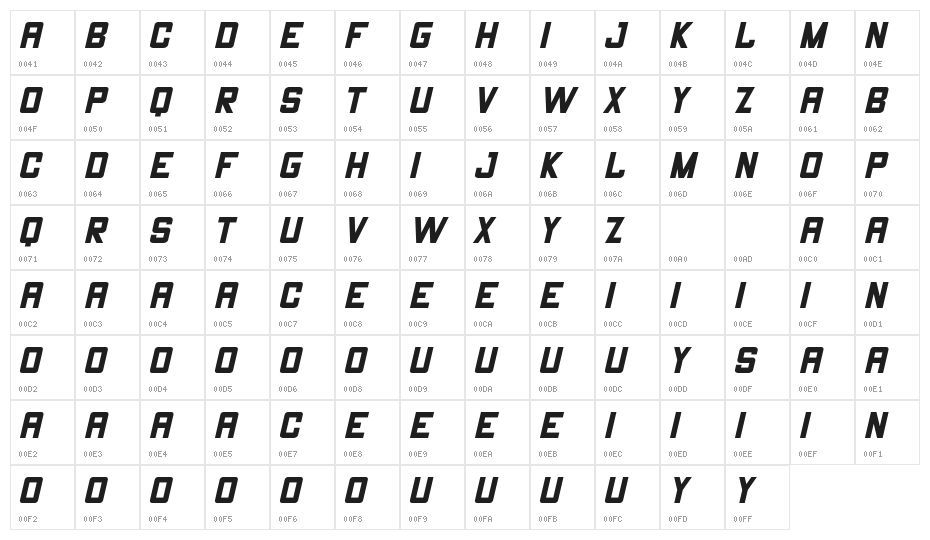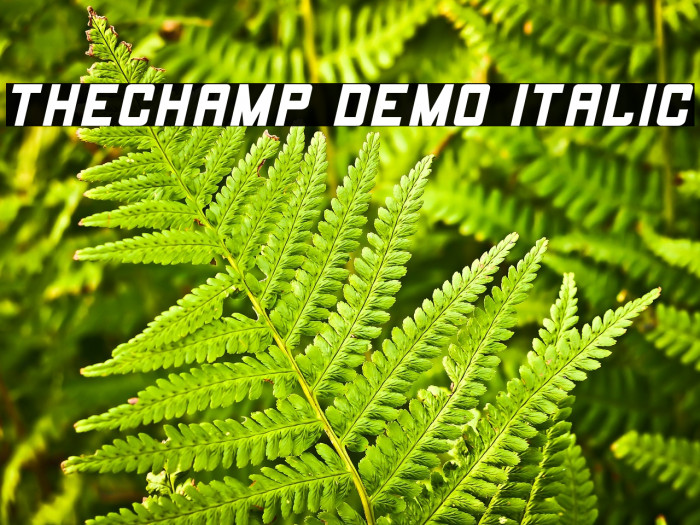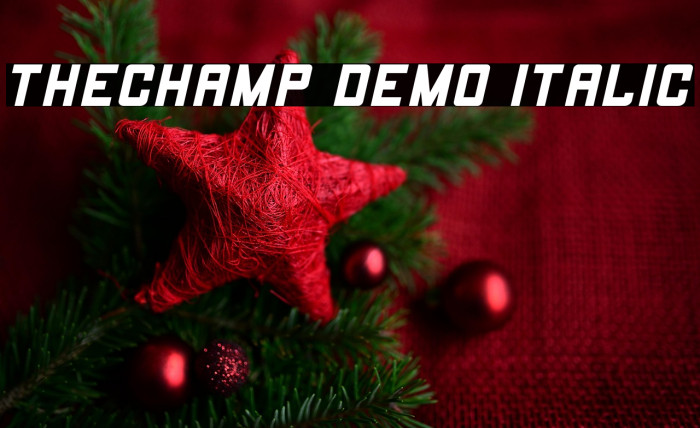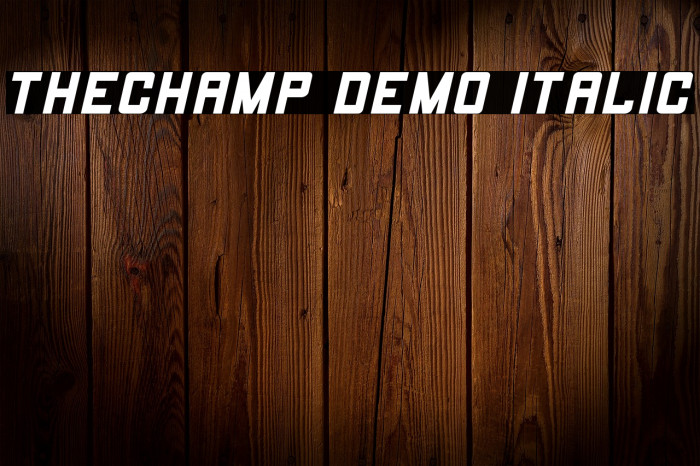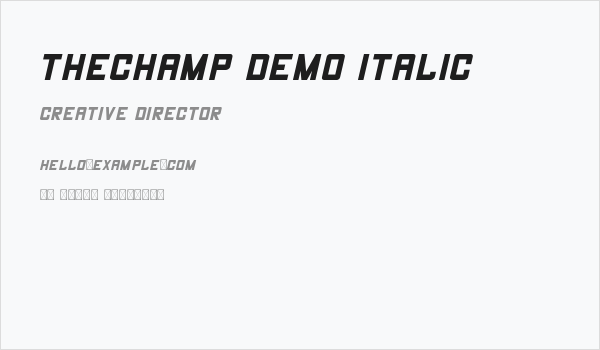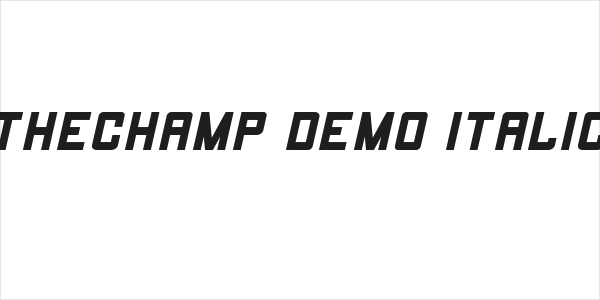
THECHAMP DEMO Italic Font
THECHAMP DEMO Italic Description
This font features a bold and dynamic style with a distinct italic slant, giving it a sense of motion and energy. The characters are robust and slightly condensed, with sharp angles and clean lines that convey a modern and sporty aesthetic. The uppercase letters are uniform in height, while the lowercase letters maintain a consistent baseline, enhancing readability. The numerals are equally bold, matching the overall style of the alphabet. This font is ideal for projects that require a strong and impactful visual presence.
| Proposed Projects | Ideal for sports branding, dynamic posters, and modern advertising campaigns. |